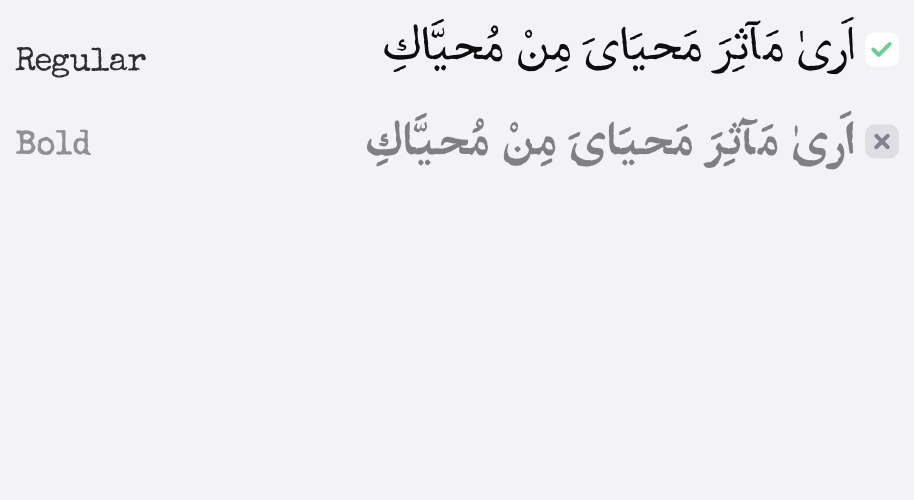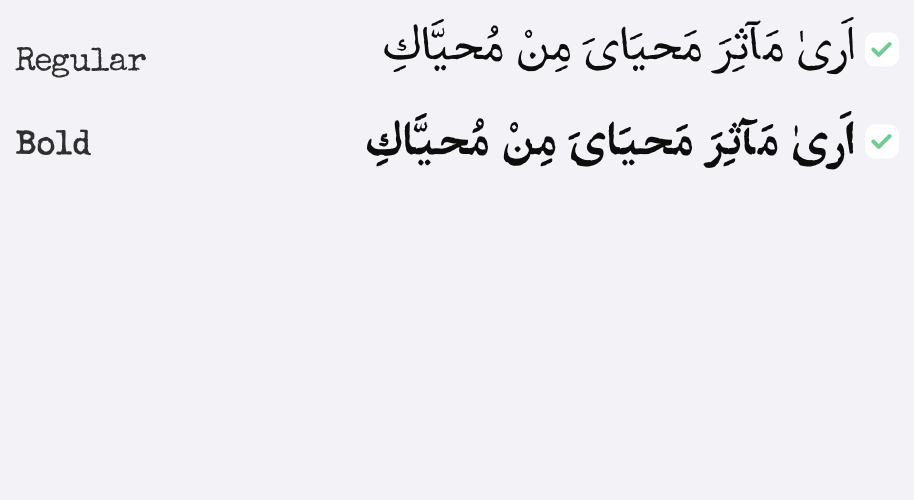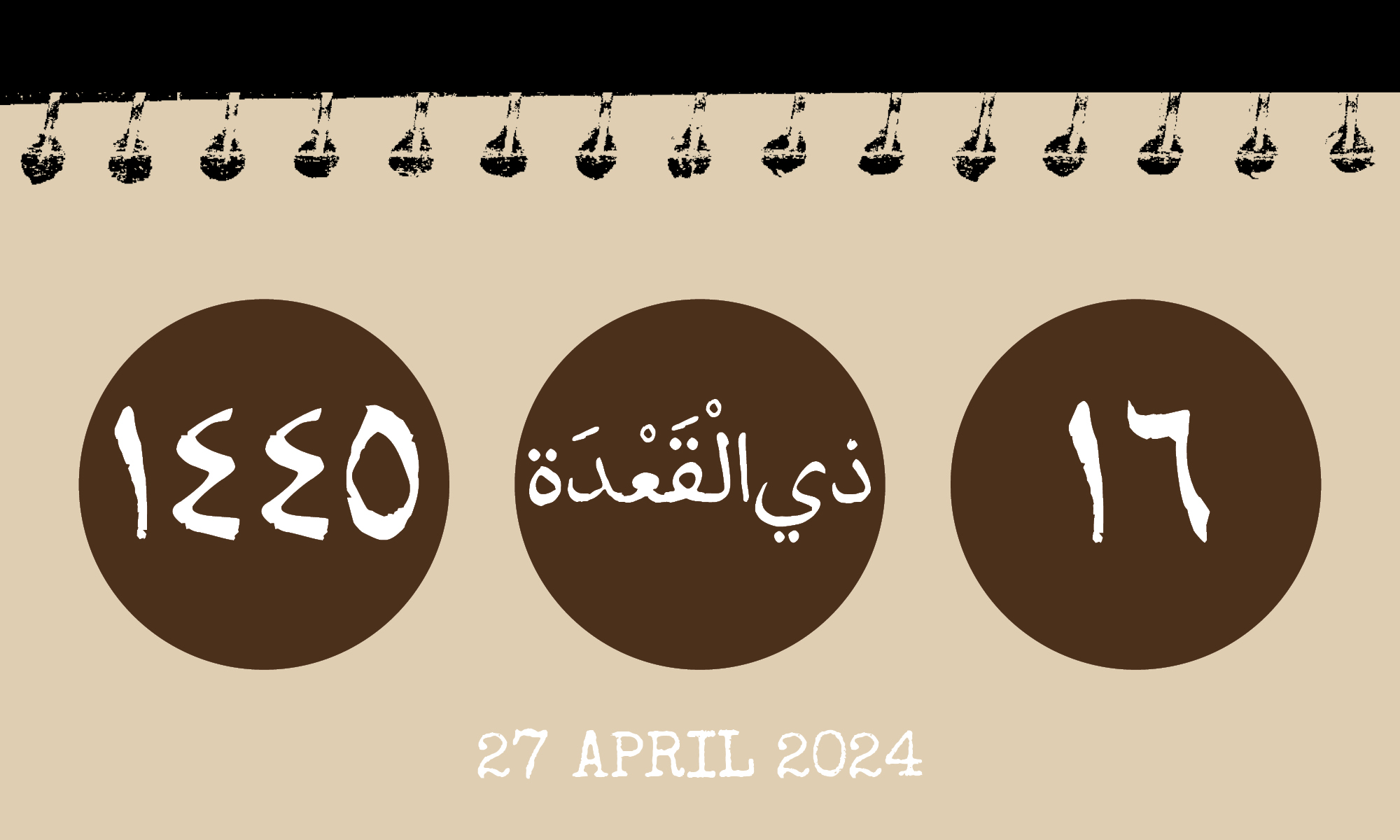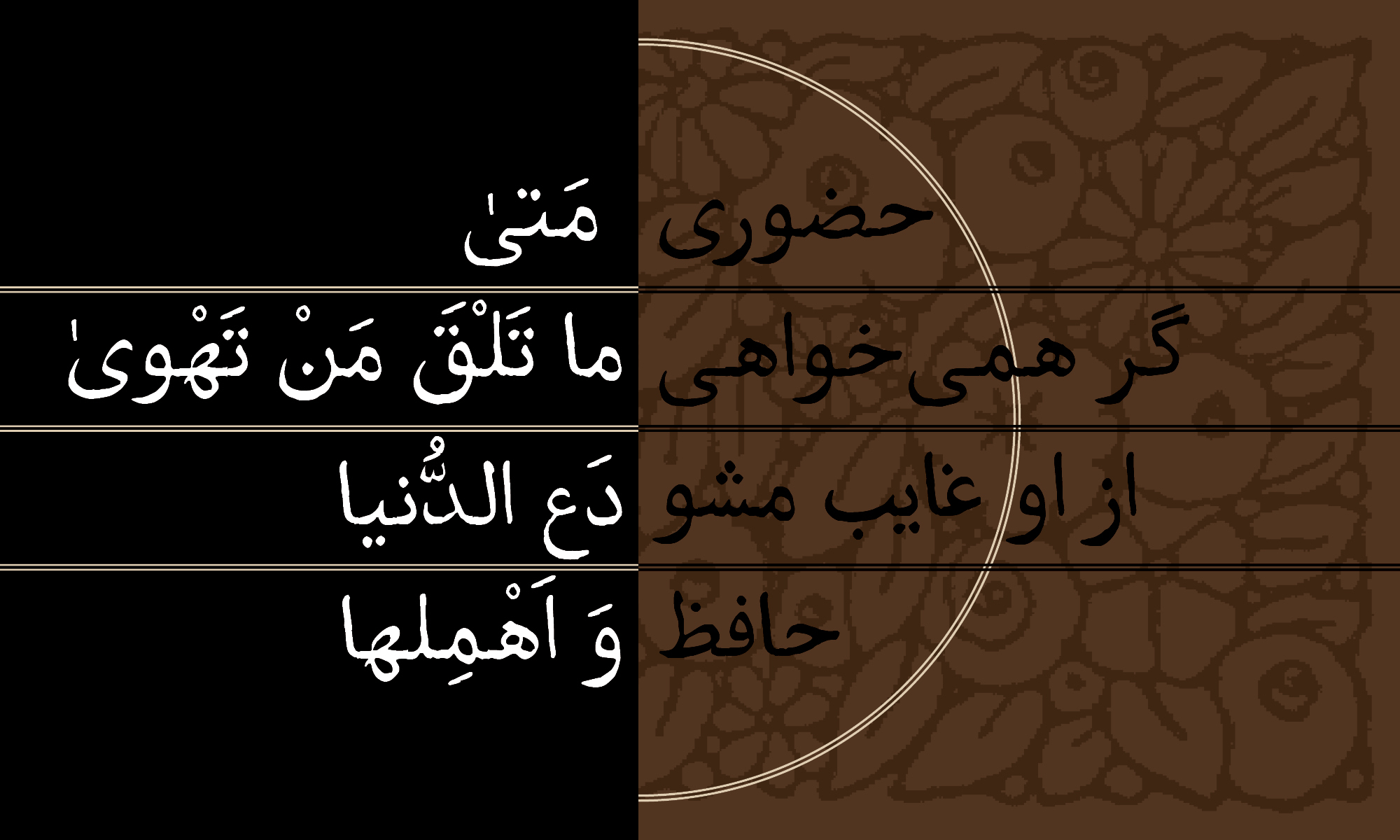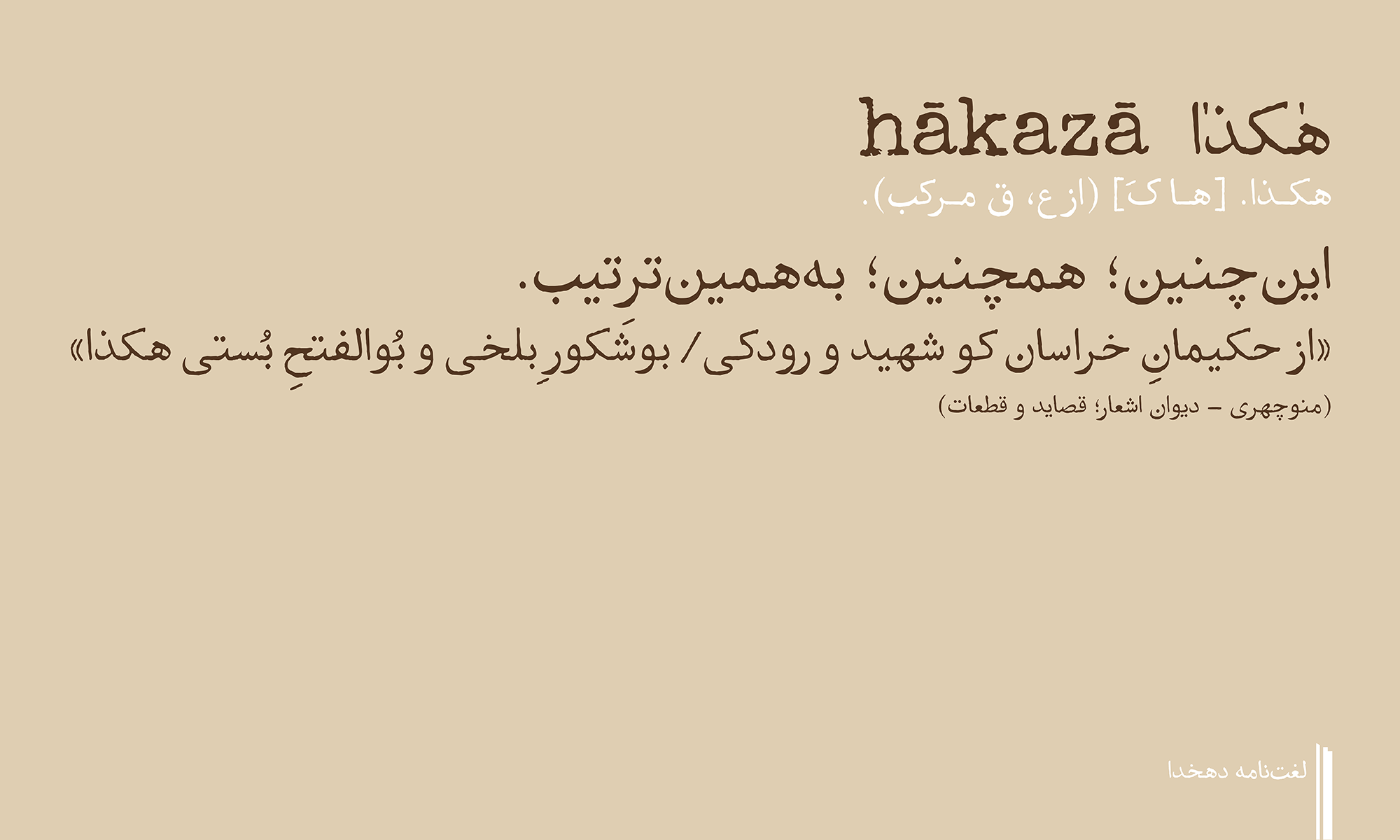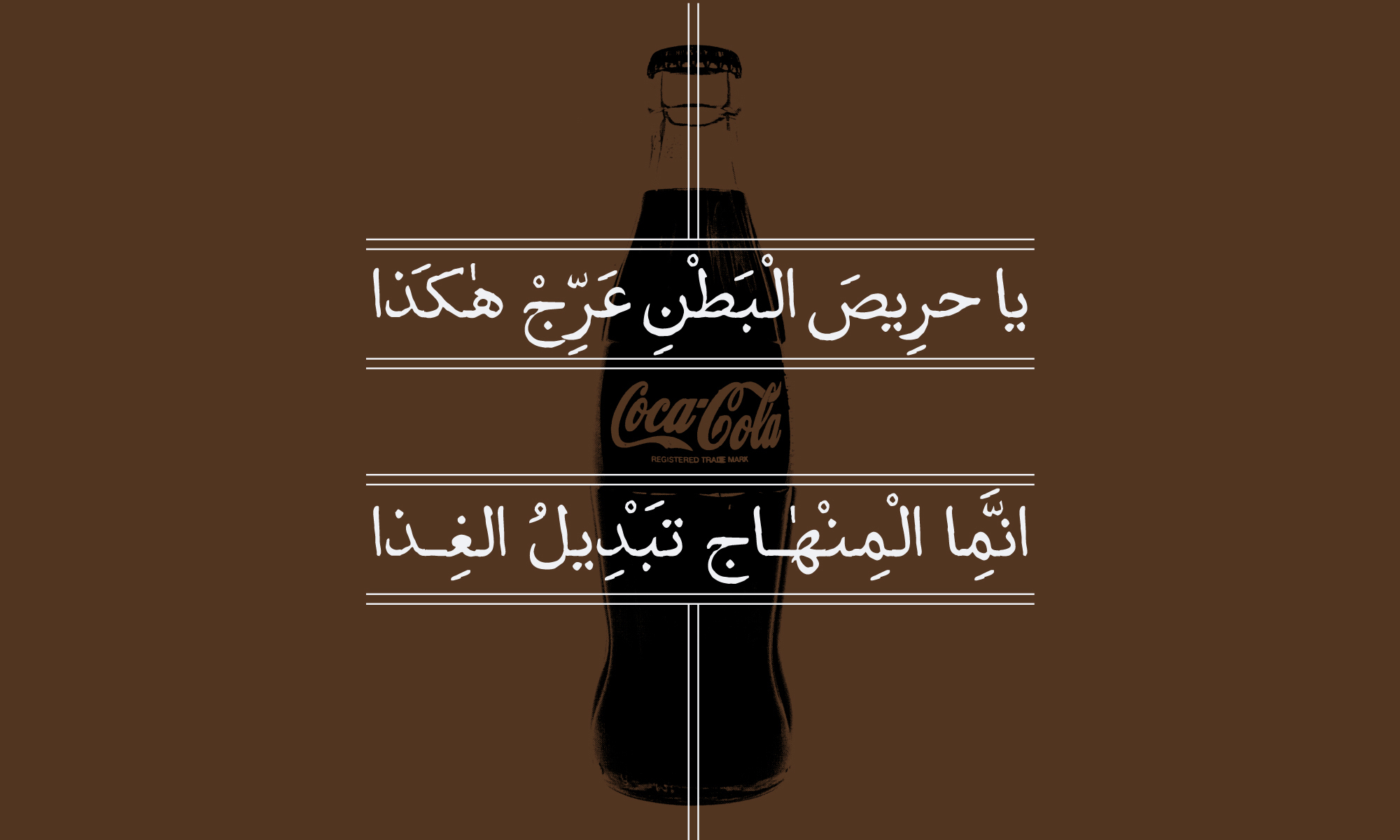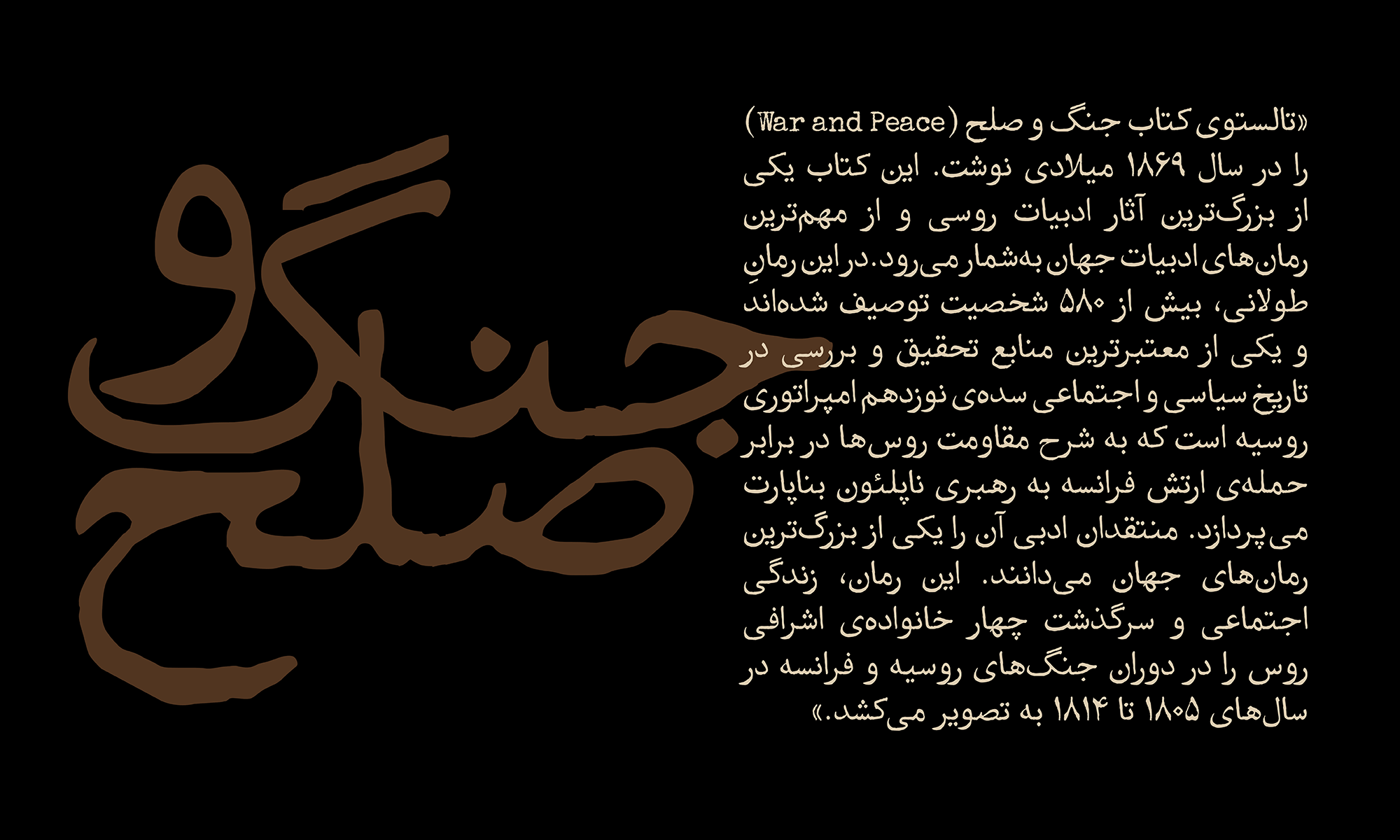
Hakaza
The Hakaza typeface has been extracted and revived from the heart of Iranian periodicals of 1970s, with tons of memories, scent of printing ink, and lots of experiences of publishing industry of Iran. Originally crafted by the Linotype typesetting machine.
Hakaza typeface is suitable for Persian and Arabic language users and meets their needs.
The designer of this font has put in all their effort to bring an enjoyable and nostalgic experience to the reader of books and magazines by adjusting and managing its positive and negative spaces, as well as ensuring consistent letter spacing and even punctuation.
Two years after the release of "Hakaza Sepid" (Regular) and receiving encouraging feedback from graphic designers and the publishing industry, the need for "Hakaza Siah" (Bold) became more evident than ever. Therefore, building upon the anatomy of Hakaza Sepid, we designed the skeleton of Hakaza Siah and developed it after extensive testing.
Among its few peers, Hakaza benefits from carefully engineered spacing between letters and words, spacing that is thoughtfully calibrated to the font’s visual structure and proportions (compare the examples below closely). In addition, the well-balanced and meticulously controlled counters of Hakaza’s letterforms ensure excellent legibility. As a result, even when set at small sizes in print, including on bulky, absorbent paper stocks, the typeface resists ink fill-in and maintains its clarity.
Hakaza is equally at home in running text, newspaper-style columns, and prominent headlines for books and magazines. This versatility gives designers and users complete freedom to explore creative applications of the typeface across a wide range of editorial and display contexts.
Hassan Karimzadeh
Hassan Karimzadeh is a prolific visual artist and art director, with his main focus over the last three decades being cultural graphic design and cartooning. He has been a key member of various international journalism and arts associations. Throughout his artistic career, Hassan has earned numerous titles, honors, and prestigious awards. He has maintained ongoing collaborations with both domestic and foreign journals and publishing houses for several decades. Currently, he serves as the director of Hich Graphic Studio and the artistic director of Tash Publishing and Ghahveh Pictorial Monthly.
Hossein Karimzadeh has MA in visual communication. Since 1999, he has worked as a graphic designer with various magazines and publications, such as "Parian Publications, Donya-e Eqtesad Publications, Zanbour Publications, Porteghal Publications, Safir Publications, Saipa Andisheh Gostar Monthly, etc."